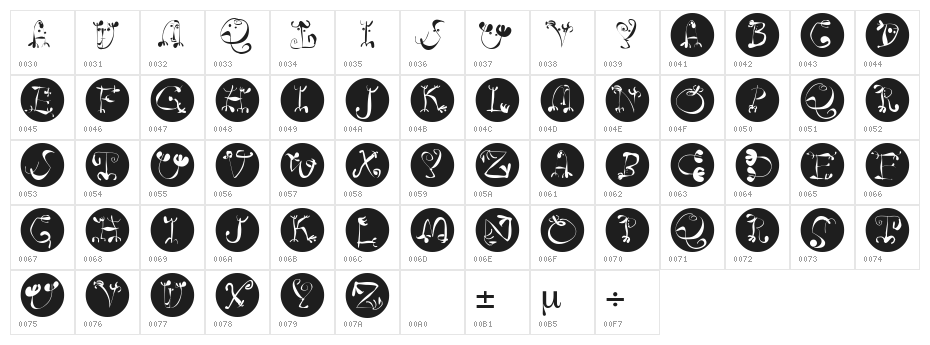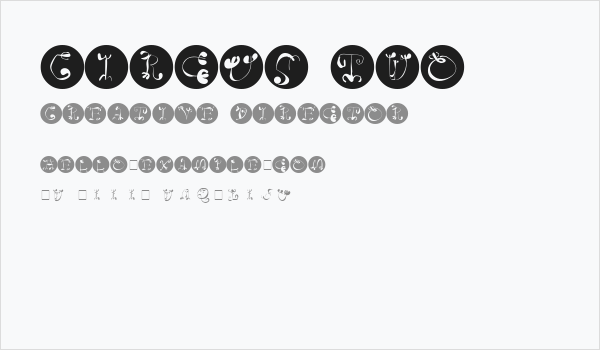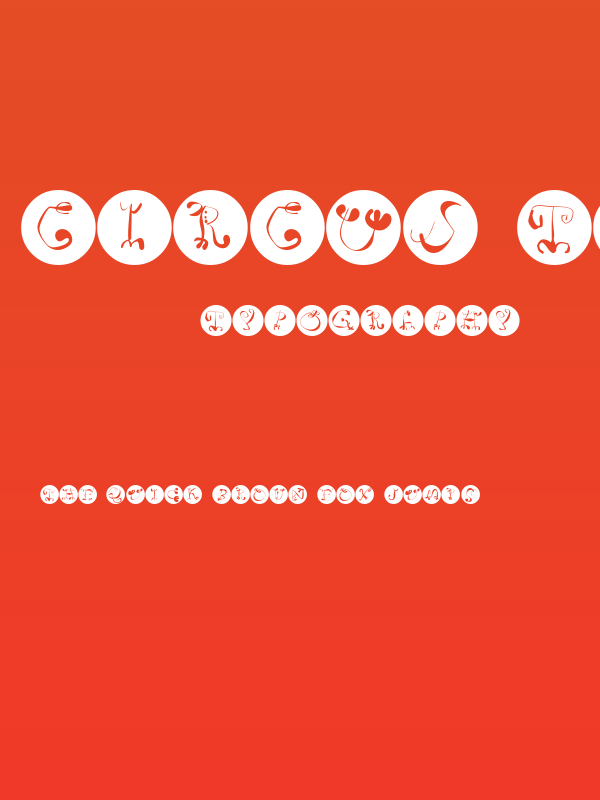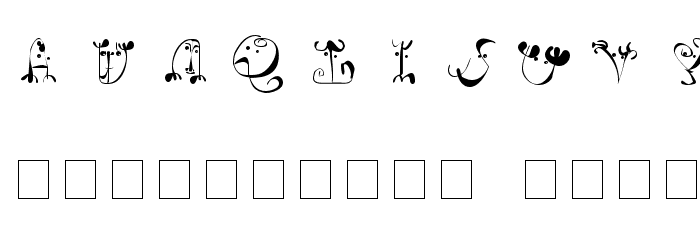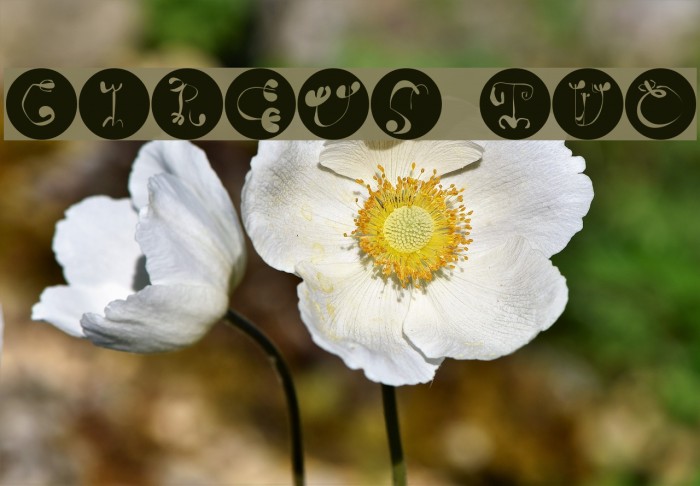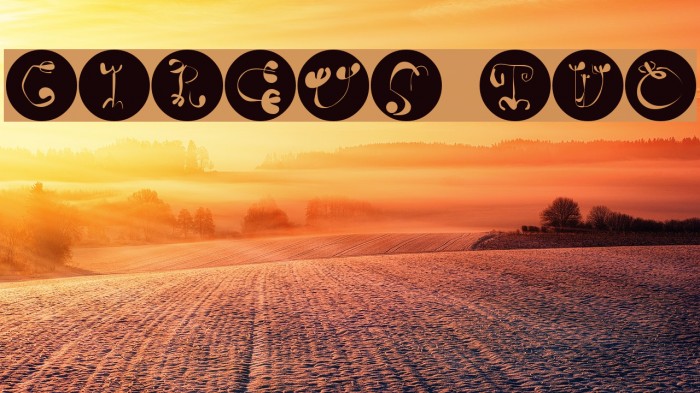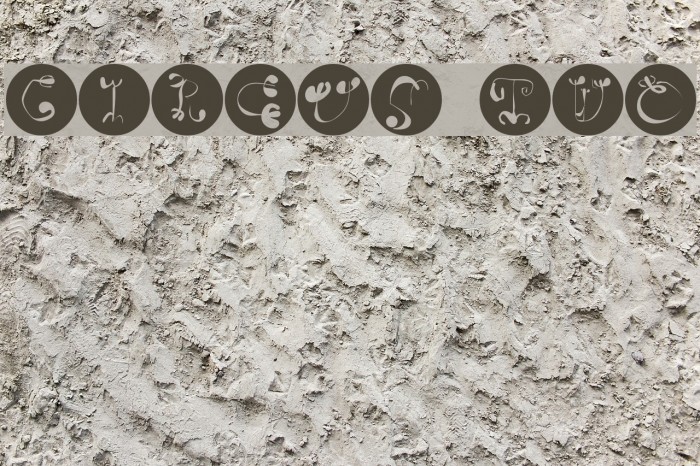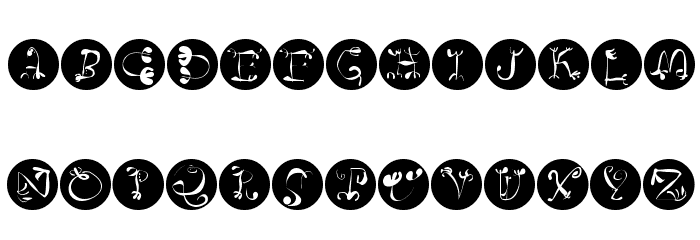
Circus Two Font
Circus Two Description
This font is a whimsical and playful design, characterized by its unique and decorative style. Each letter is encased in a circular black background, with intricate and imaginative embellishments that resemble circus elements. The font features a mix of curves, loops, and unexpected shapes, giving it a lively and animated appearance. The characters are highly stylized, with a focus on artistic expression rather than uniformity. This font is ideal for creative projects that require a touch of fun and fantasy, making it perfect for themed events, children's books, or playful branding.